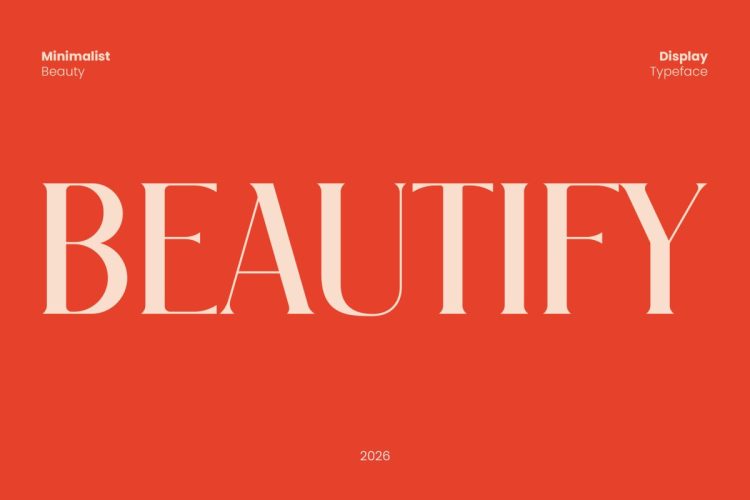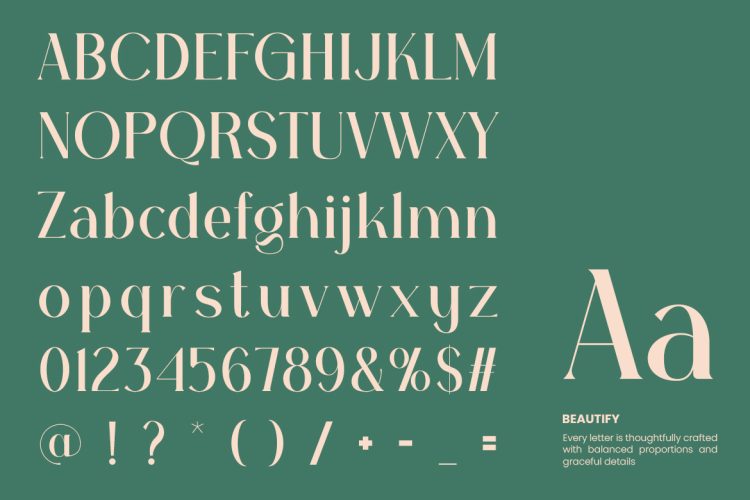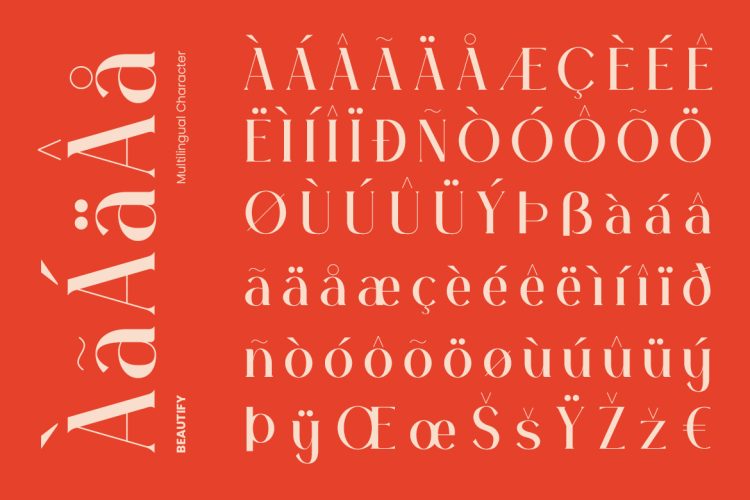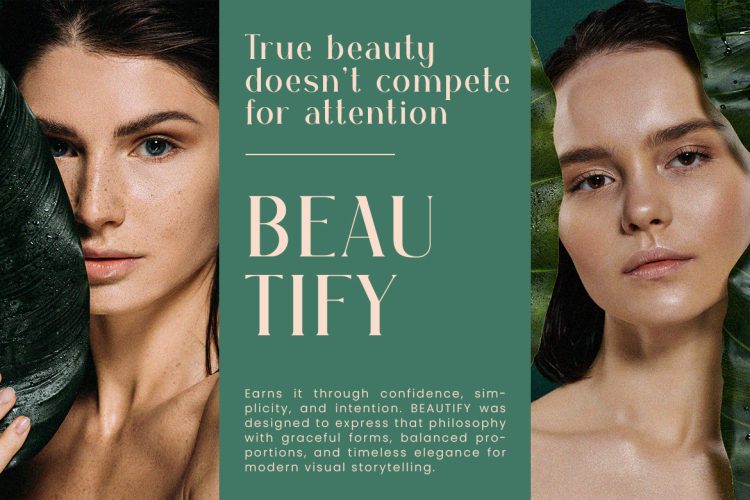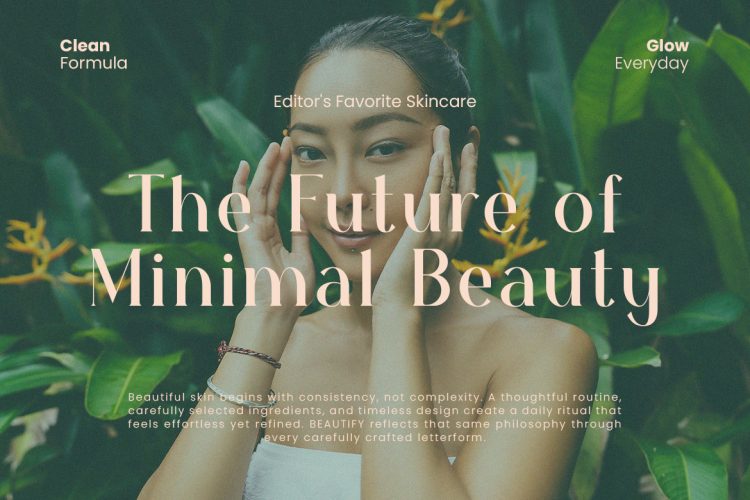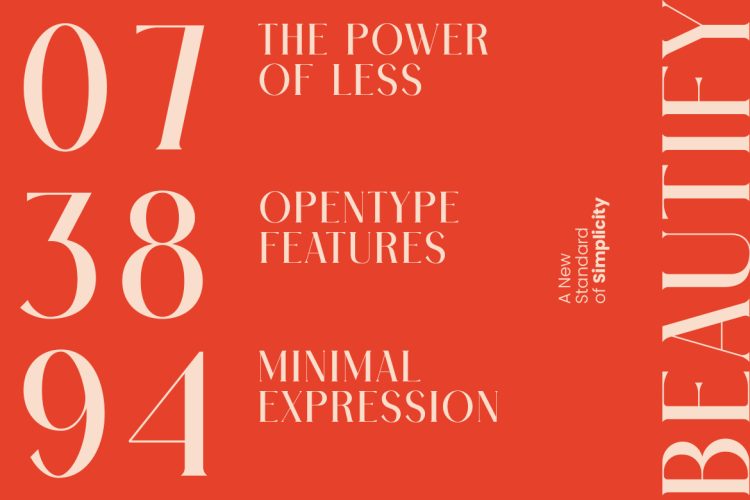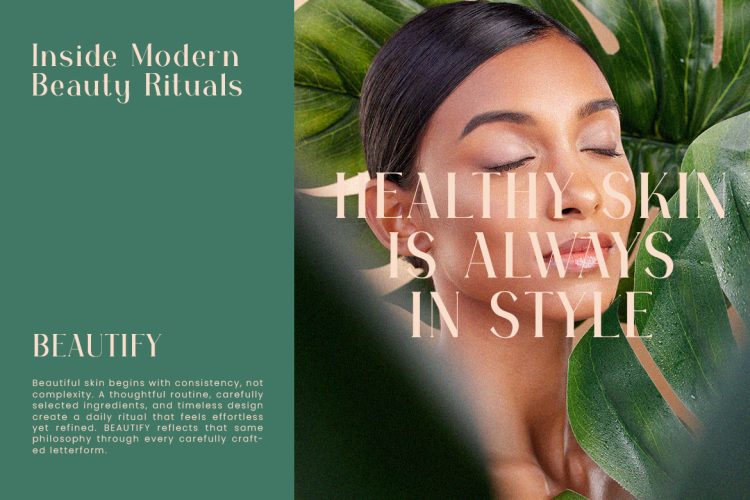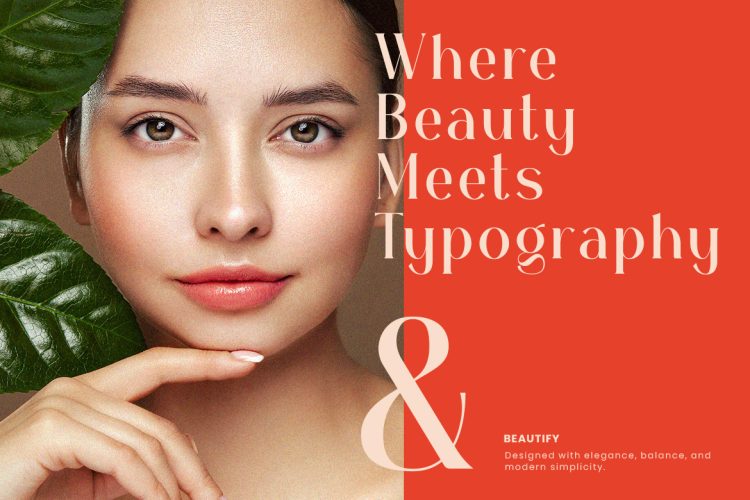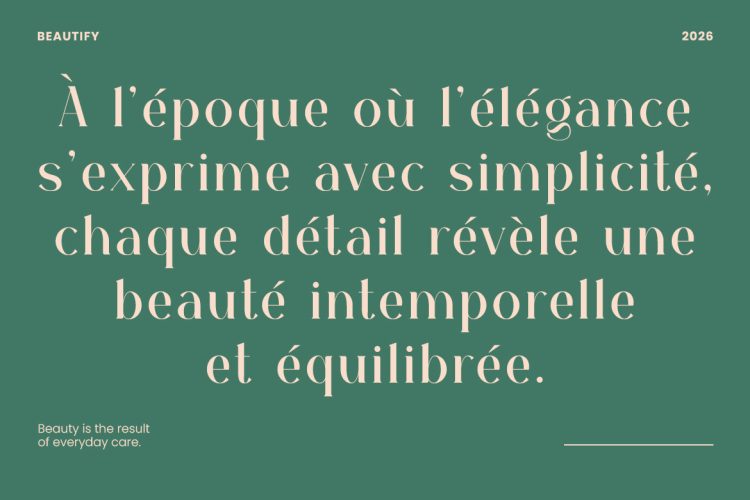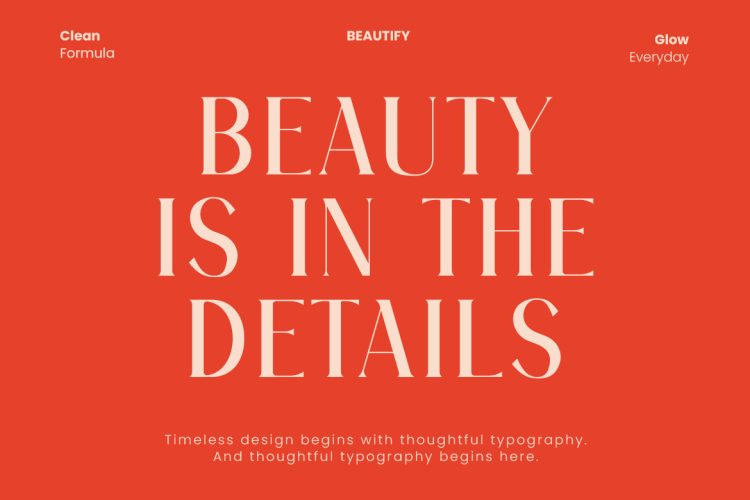
Instagram Font Beautify โย Elegant Minimal Serif for Beauty Brands, Fashion & Timeless Design
Instagram Font Beautify celebrates the beauty of simplicity through graceful typography that feels calm, refined, and effortlessly modern. Rather than relying on excessive decoration, this elegant serif creates impact with delicate curves, balanced proportions, and sophisticated contrast. Moreover, every letter is carefully crafted to evoke a sense of luxury and harmony. As a result, your headlines appear polished, graceful, and naturally captivating. At the same time, its clean structure ensures outstanding readability across both digital and printed media. Furthermore, Beautify transforms ordinary layouts into premium visual experiences where every word becomes part of the design itself.
Why Designers Choose Instagram Font Beautify
Instagram Font Beautify is created for brands that believe elegance speaks louder than complexity. Not only does it enhance typography, but it also builds an atmosphere of refinement and exclusivity. The font supports 67 languages, allowing brands to connect with global audiences. In addition, its editorial-inspired style works beautifully for skincare packaging, cosmetic branding, fashion campaigns, wellness products, luxury boutiques, magazines, wedding stationery, websites, and premium social media content. Likewise, its timeless serif details blend seamlessly with minimalist layouts. Meanwhile, its refined character keeps every composition clean, balanced, and memorable. Most importantly, Beautify allows your brand to express confidence through understated elegance.
- Beauty and skincare brands
- Fashion editorials and lookbooks
- Luxury cosmetic packaging
- Wedding invitations
- Lifestyle and wellness branding
- Premium Instagram content
- Boutique logos and visual identity
- Magazine covers and websites
Let Simplicity Shine
If your brand deserves typography with timeless sophistication, Beautify is the perfect companion. Furthermore, its elegant personality instantly elevates every project with minimal effort. Consequently, your branding feels more luxurious, trustworthy, and distinctive. Finally, choose Beautify today and create designs where elegance is not just seenโbut genuinely felt.